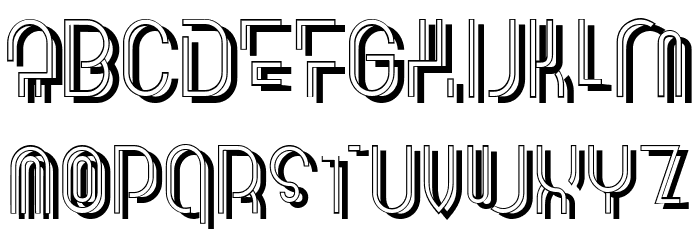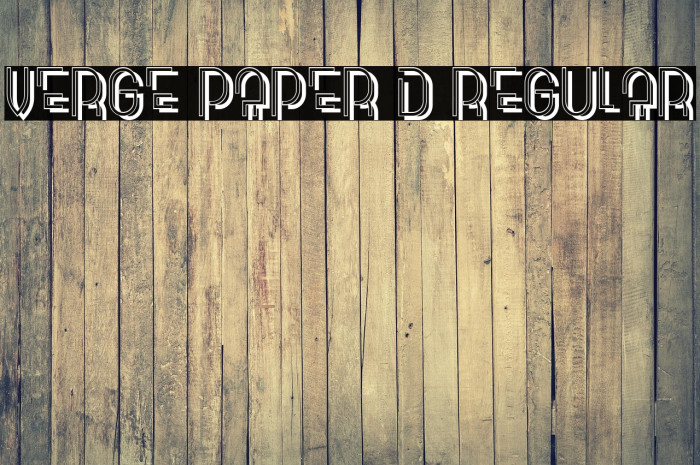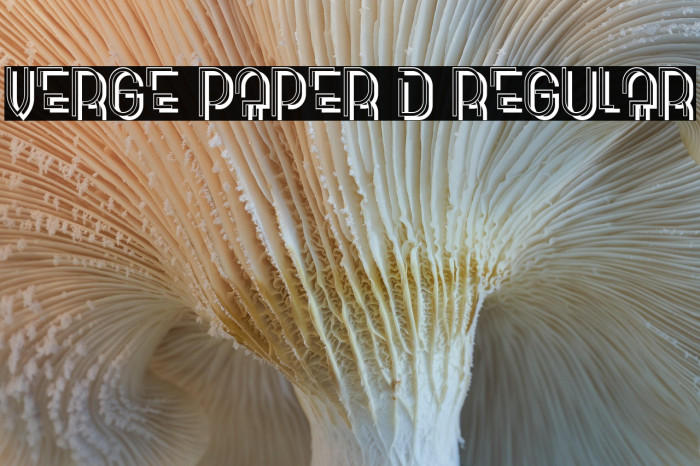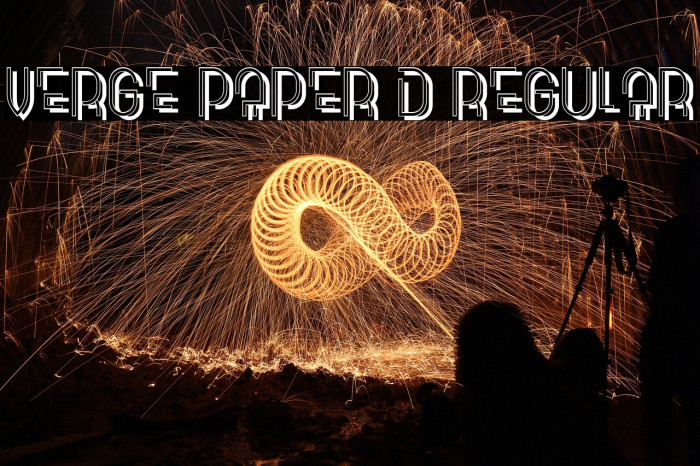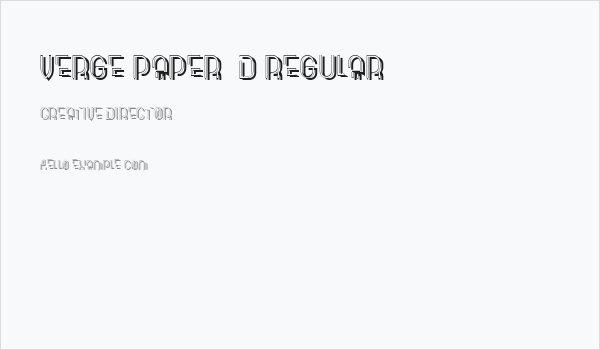
Verge Paper 3D Regular Font
Verge Paper 3D Regular Description
This font features a unique 3D paper-cut effect, characterized by its layered, shadowed appearance that creates a sense of depth and dimension. The letters are bold and structured, with clean lines and geometric shapes that give it a modern and futuristic feel. The design incorporates both straight and curved elements, adding versatility and visual interest. The font's intricate detailing and shadowing make it stand out, making it suitable for eye-catching designs.
| Proposed Projects | Ideal for posters, headlines, branding, and any project requiring a striking, modern aesthetic. |